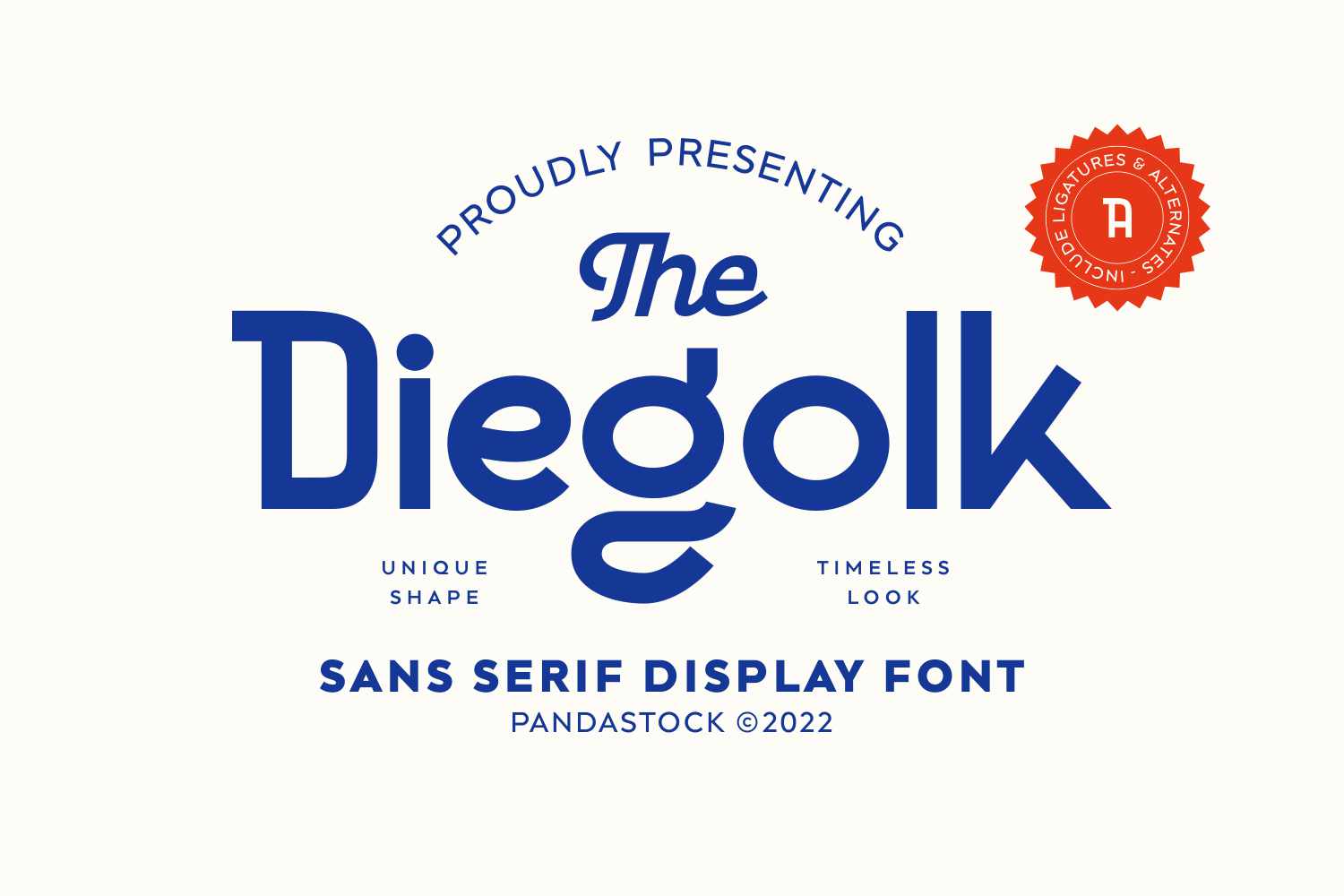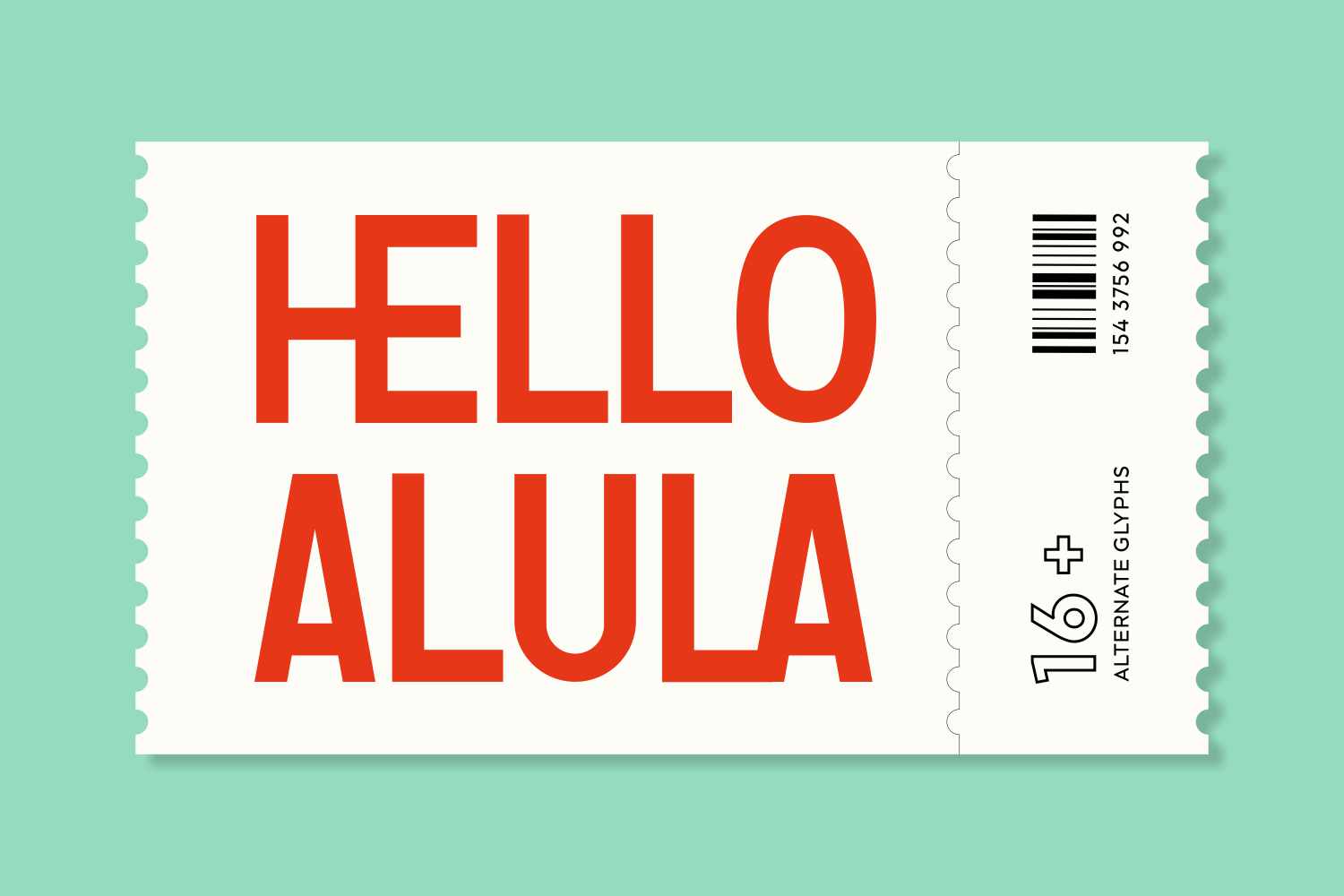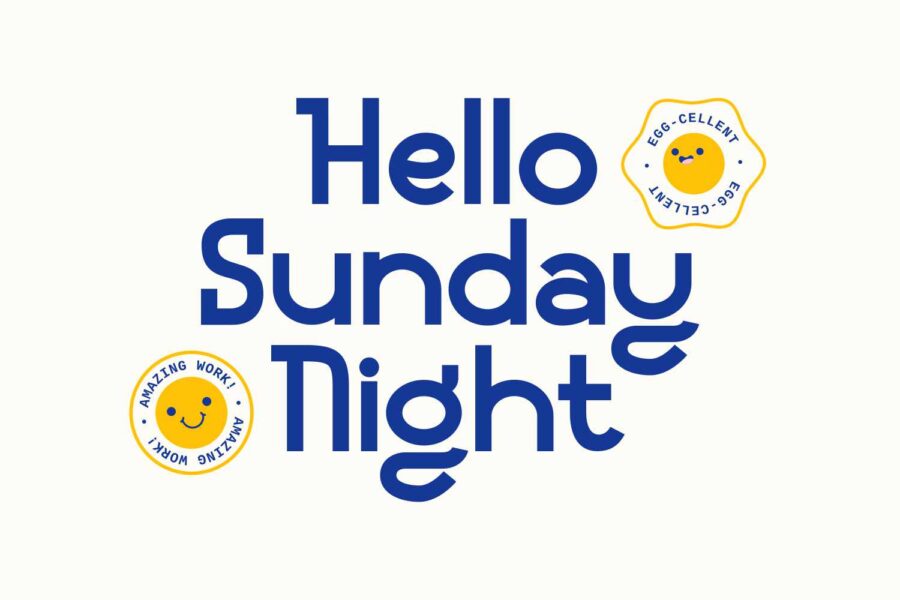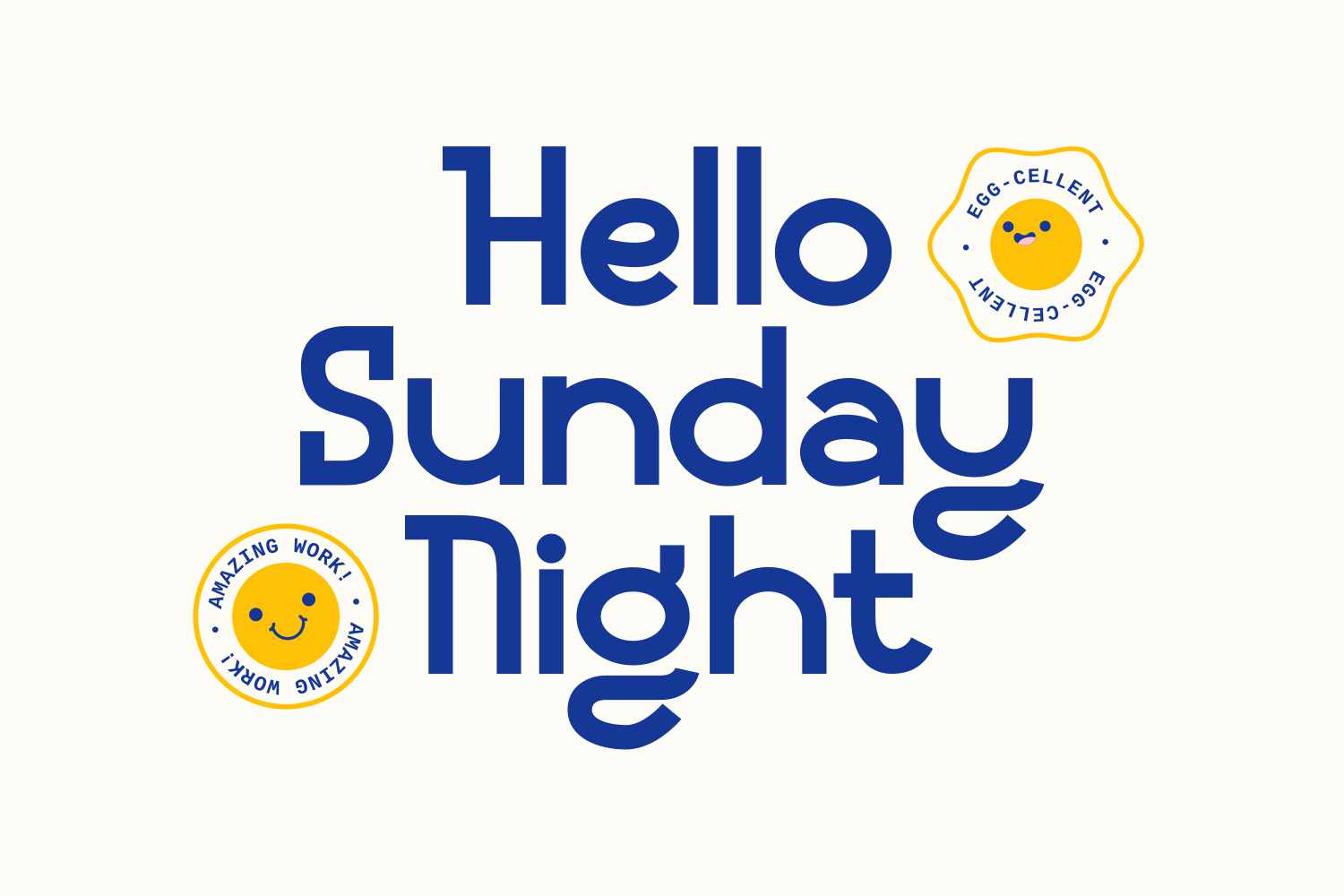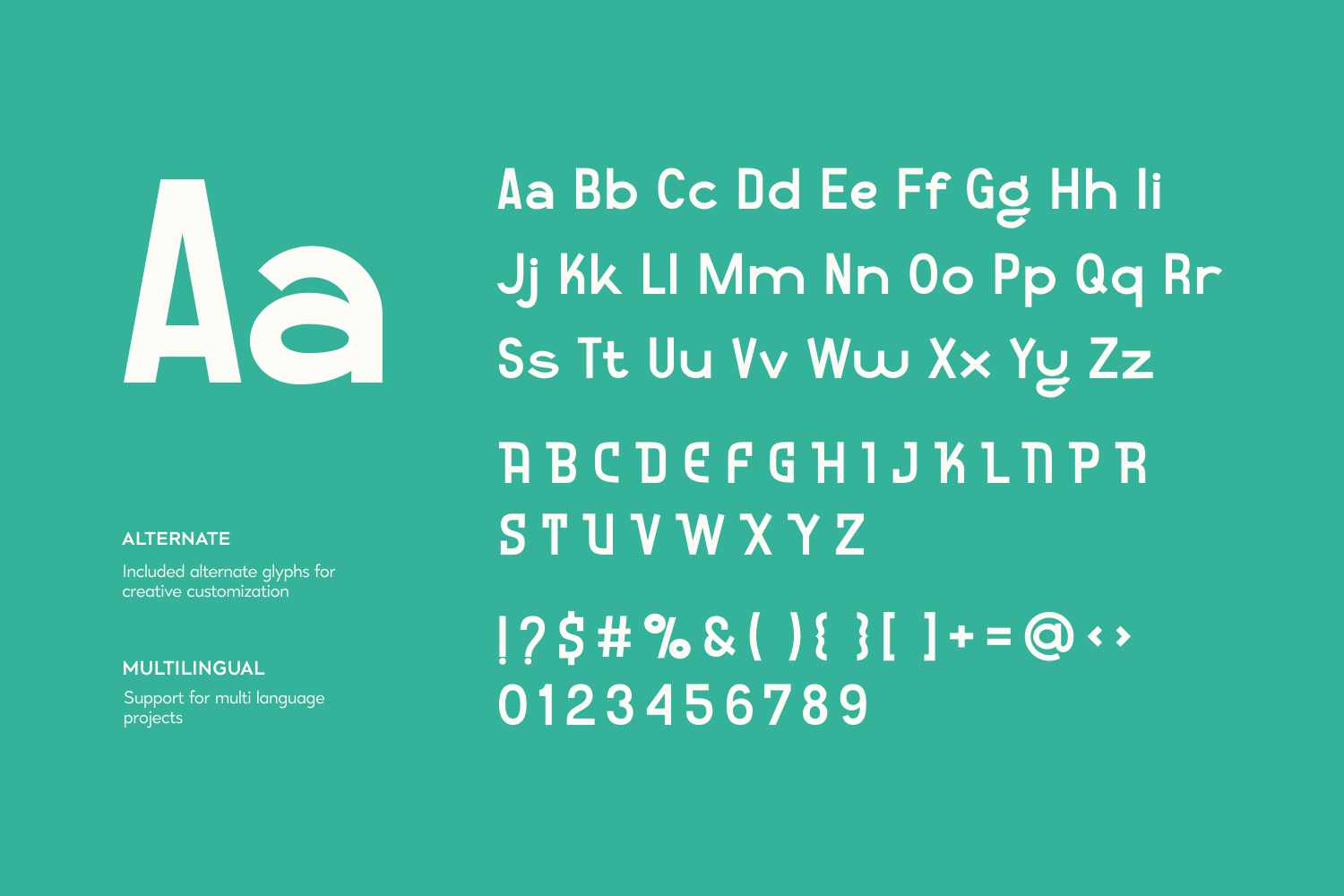
Diegolk
Diegolk is a Sans Serif Display Font with a unique and timeless design that blends geometric forms with playful personality. Its distinctive shapes and balanced proportions make it an excellent choice for branding, packaging, editorial design, and posters. Designed to be versatile, Diegolk brings both modernity and warmth to creative projects, giving them a memorable and stylish identity.
With alternates, ligatures, and multilingual support, Diegolk offers flexibility for designers to explore customized typography. Whether for logos, event promotions, product labels, or digital media, this font delivers a bold yet approachable look that ensures your design stands out with clarity and charm.